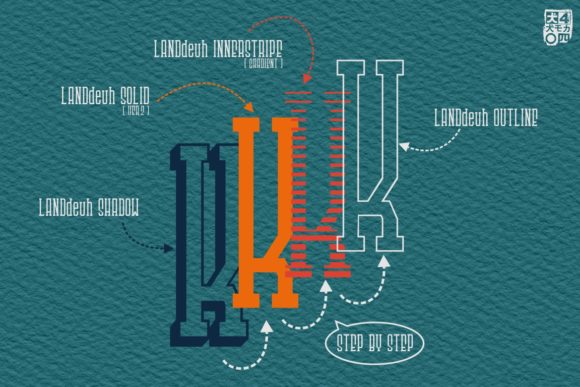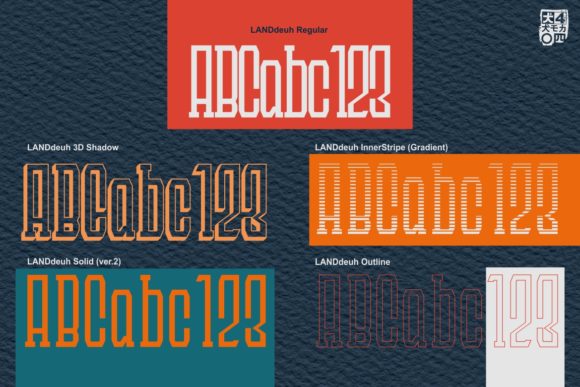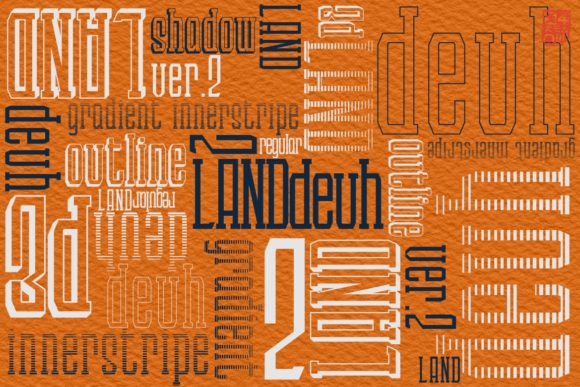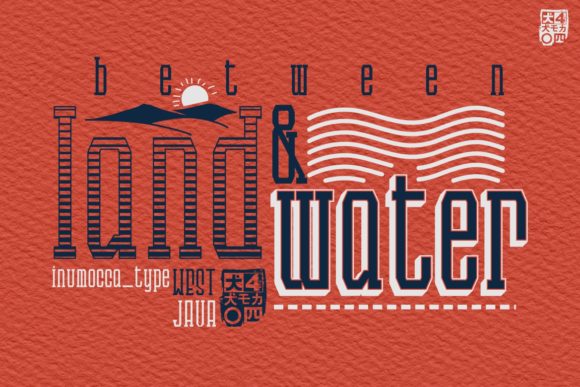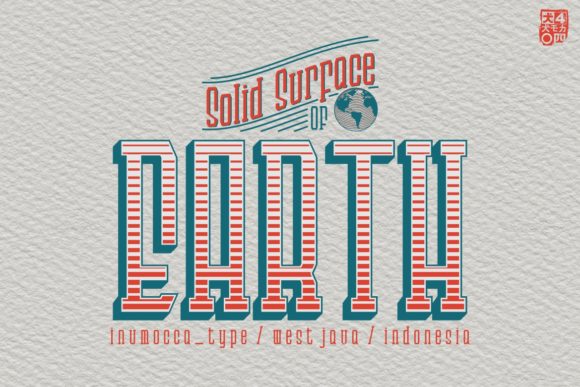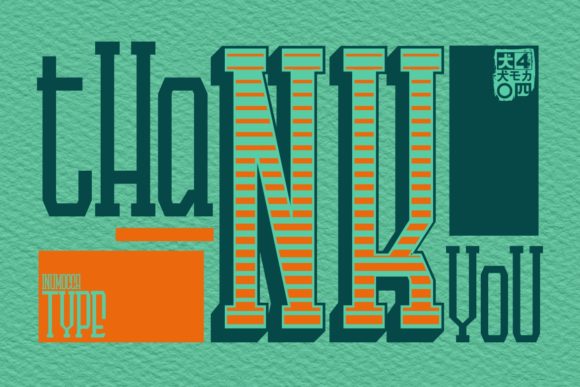
Introduction to Landdeuh Font
As designers, we’ve all been there – staring at a blank canvas, trying to bring our creative vision to life. But sometimes, all it takes is one font to make the magic happen. For me, that font is Landdeuh Font. Its bold and vintage style has a way of commanding attention and elevating any design project to the next level.
Whether you’re working on a high-profile campaign or a personal creative project, Landdeuh Font is an invaluable resource that can help you stand out from the crowd. With its unique blend of classic and modern elements, this font is perfect for designers who want to add a touch of sophistication and elegance to their work. And the best part? It’s available for free download, making it an accessible and versatile design resource for anyone.
With its high-quality design and transparent background, Landdeuh Font is the perfect choice for designers who want to create visually stunning and cohesive designs. So why settle for ordinary when you can have extraordinary? Discover the power of Landdeuh Font and take your designs to new heights.
Key Features of Landdeuh Font
- High-quality font design, ideal for creative projects that require a unique and stylish touch.
- Unique characteristics include a bold, modern design and a wide range of stylistic variations.
Honest Review: Landdeuh Font
As a designer, I’m always on the lookout for high-quality design resources that can elevate my creative projects. Recently, I stumbled upon the Landdeuh Font, and I’m excited to share my honest review with you.
What works well: ✨ The Landdeuh Font is incredibly versatile and can be used for a wide range of projects, from logos to web design. The font’s sleek and modern design makes it perfect for creating a professional look and feel. Additionally, the font is available for free download, which is a huge plus for designers on a budget.
- High-quality design: The font is well-designed and looks great on various devices and screen sizes.
Any limitations: ⚠️ The font is a bit limited in terms of font sizes and styles, which may not be ideal for designers who require a lot of customization options.
Overall impression: The Landdeuh Font is a great addition to any designer’s toolkit. Its high-quality design, transparent background, and free download make it a valuable resource for creative projects. While it may have some limitations, I highly recommend giving it a try and see how it can elevate your designs.
The Landdeuh Font is a high-quality, free download design resource ideal for creative projects. This versatile font features a transparent background, making it easy to integrate into various design elements.
The Landdeuh Font is ideal for:
- Creating eye-catching titles and headings.
- Designing branding materials, such as logos and business cards.
- Developing marketing materials, such as brochures and flyers.